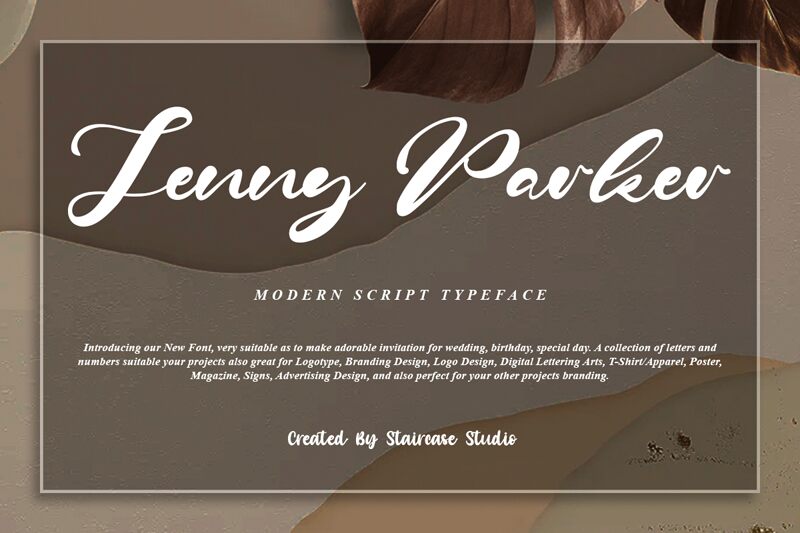
Jenny Parker
Jenny Parker is a bold and modern script font designed by Staircase Studio. It's perfect for creating eye-catching invitations, posters, logos, and more! Its stylish yet versatile nature makes it suitable for all types of projects such as designing wedding stationery or creating social media posts.